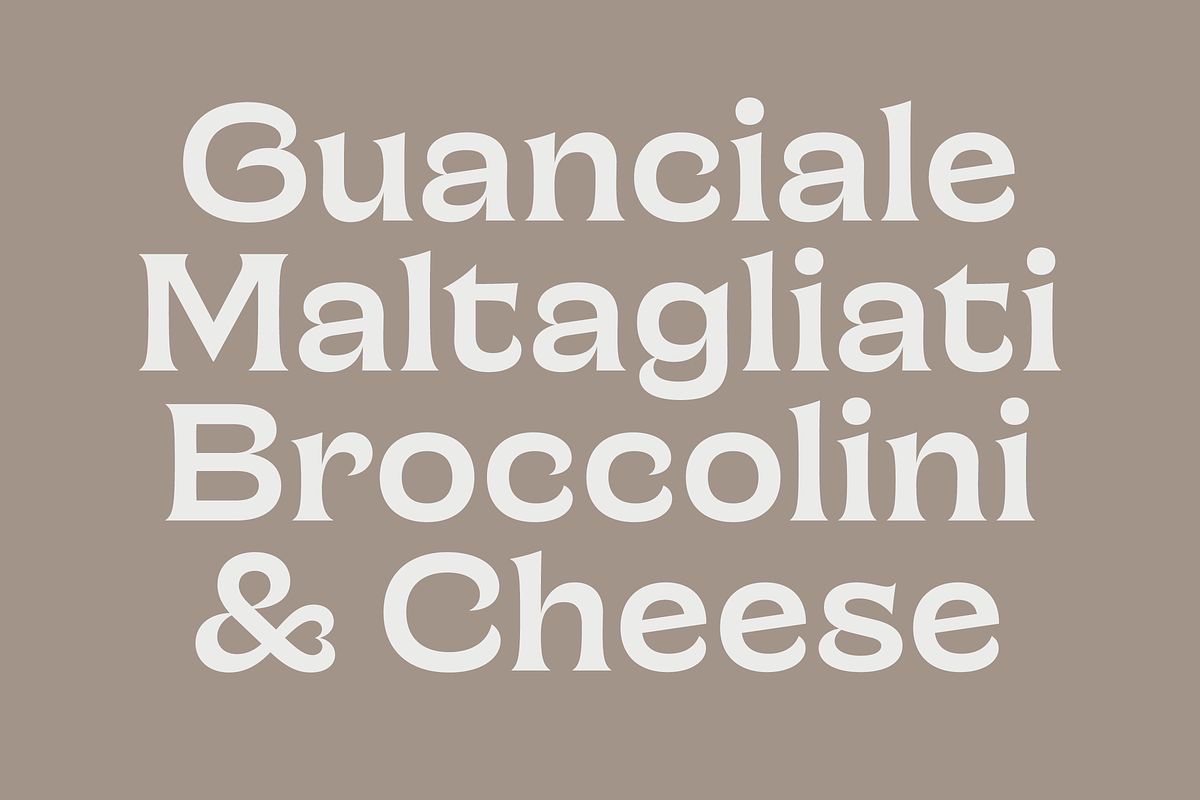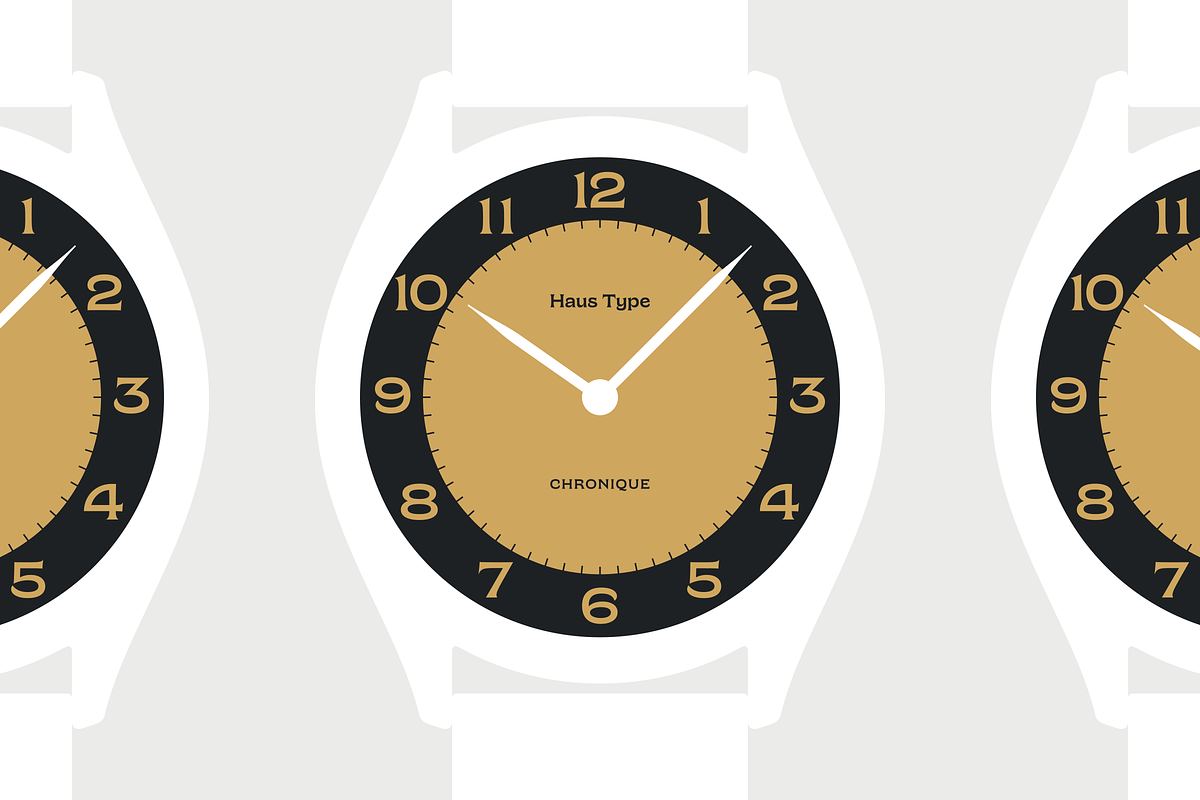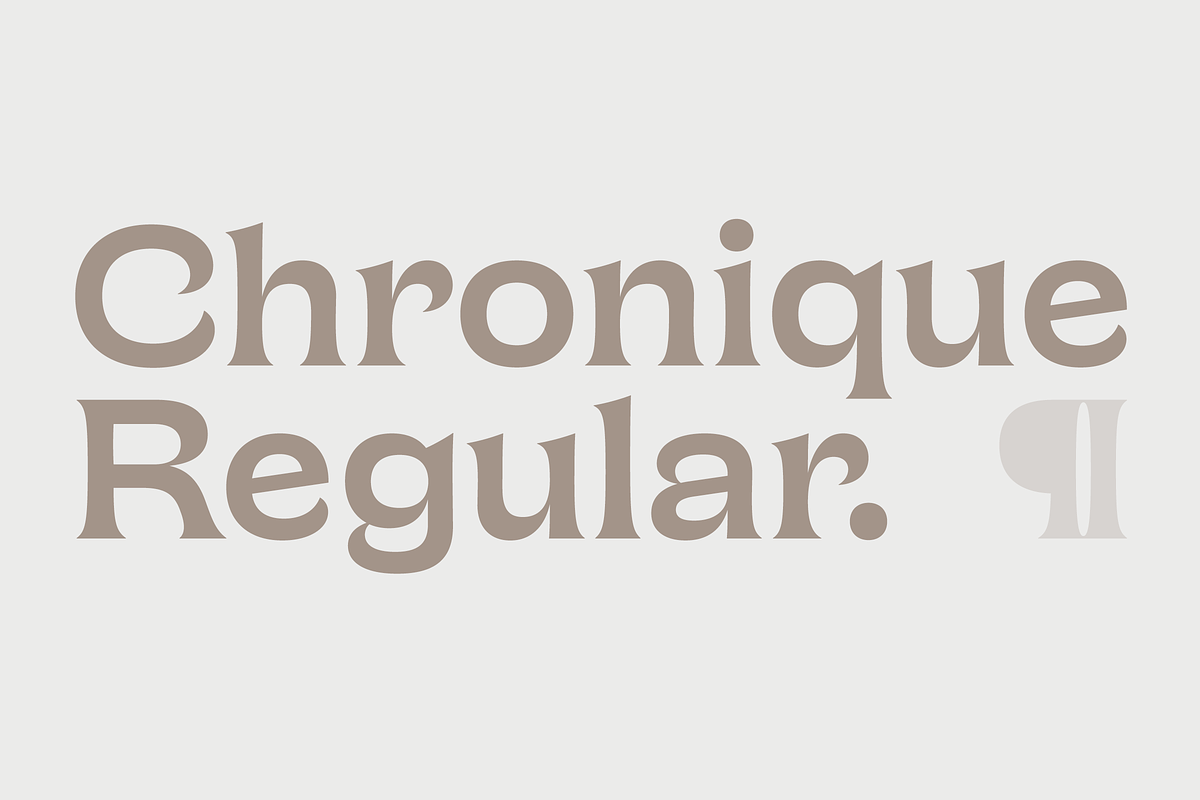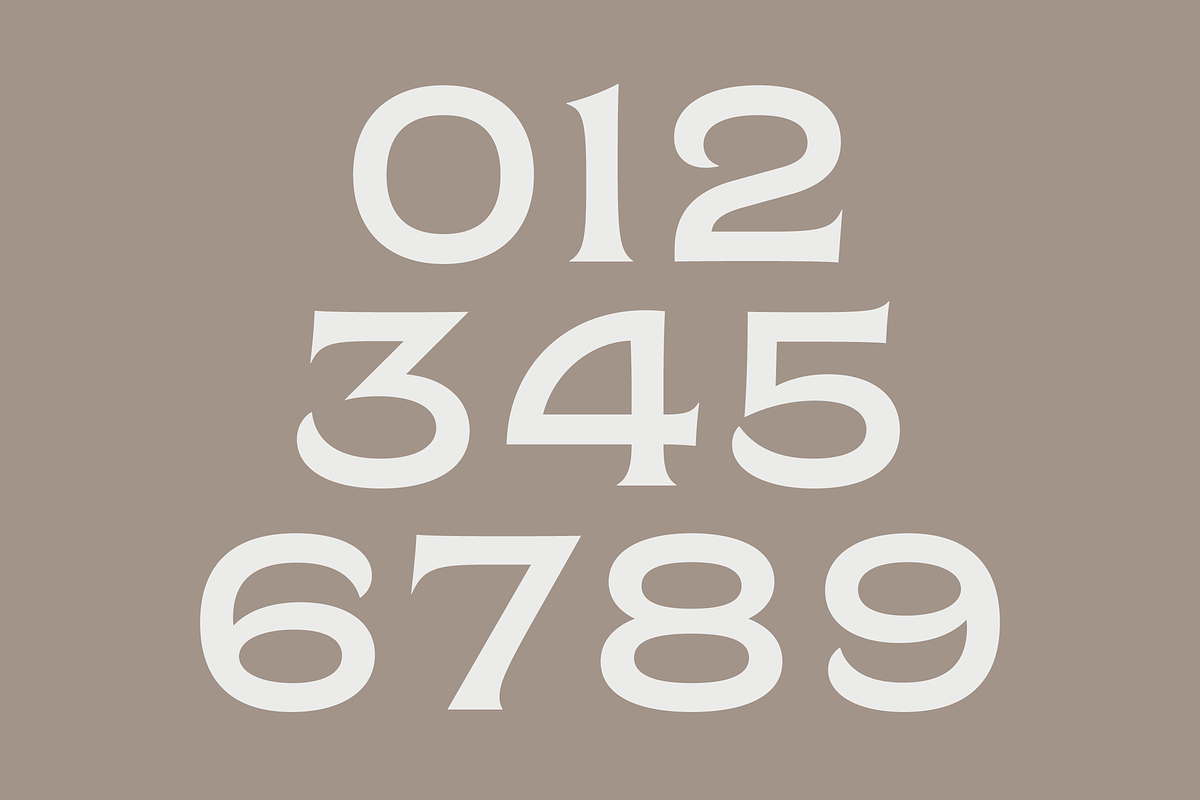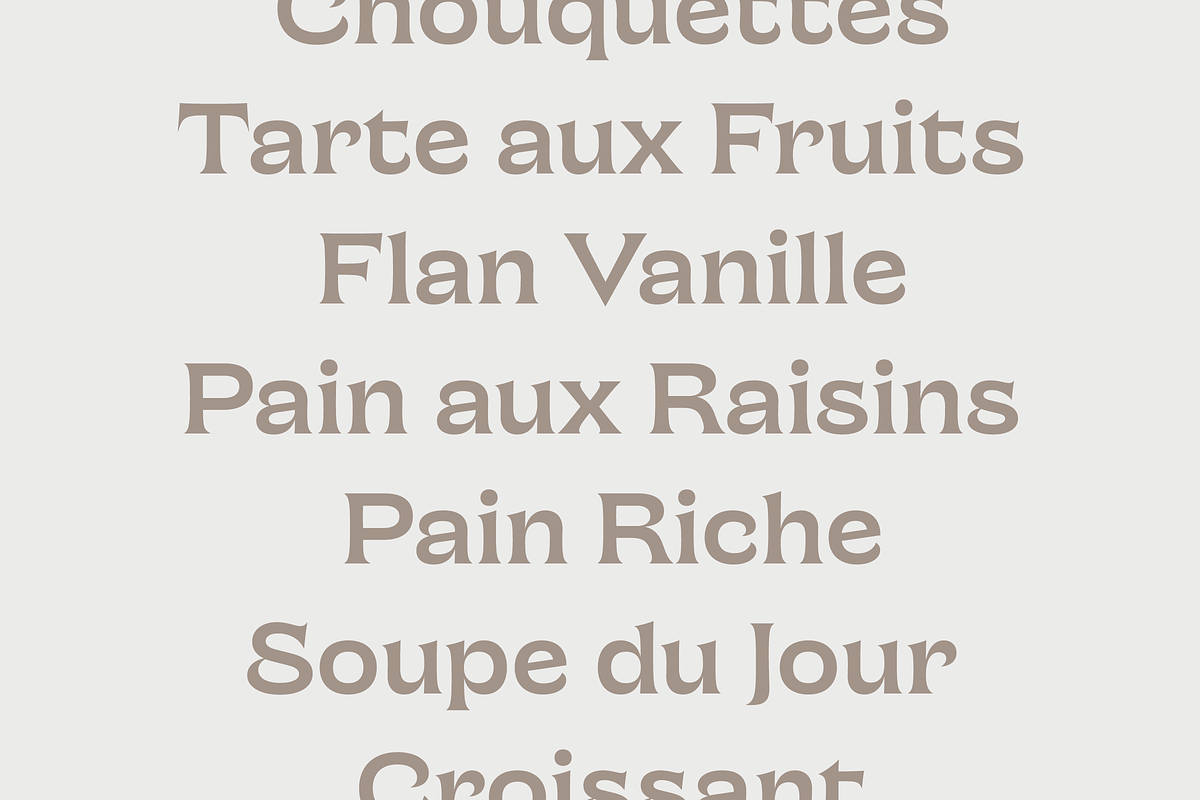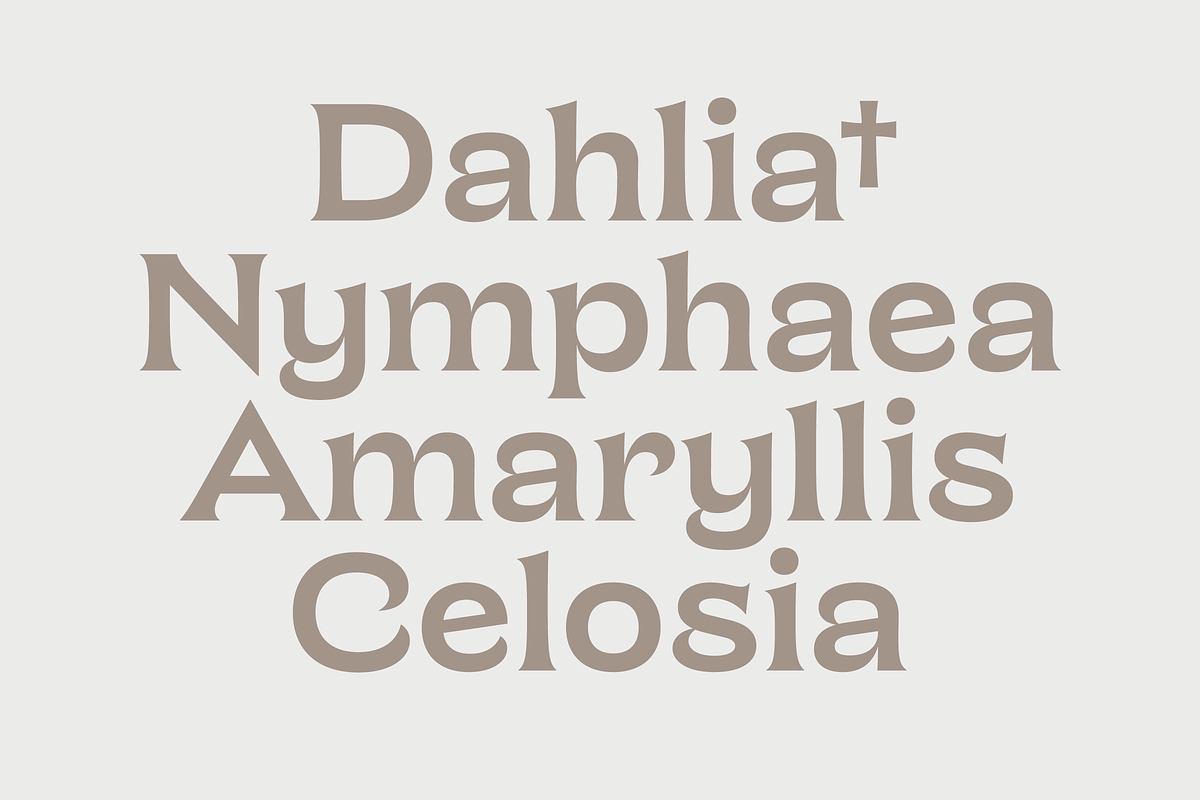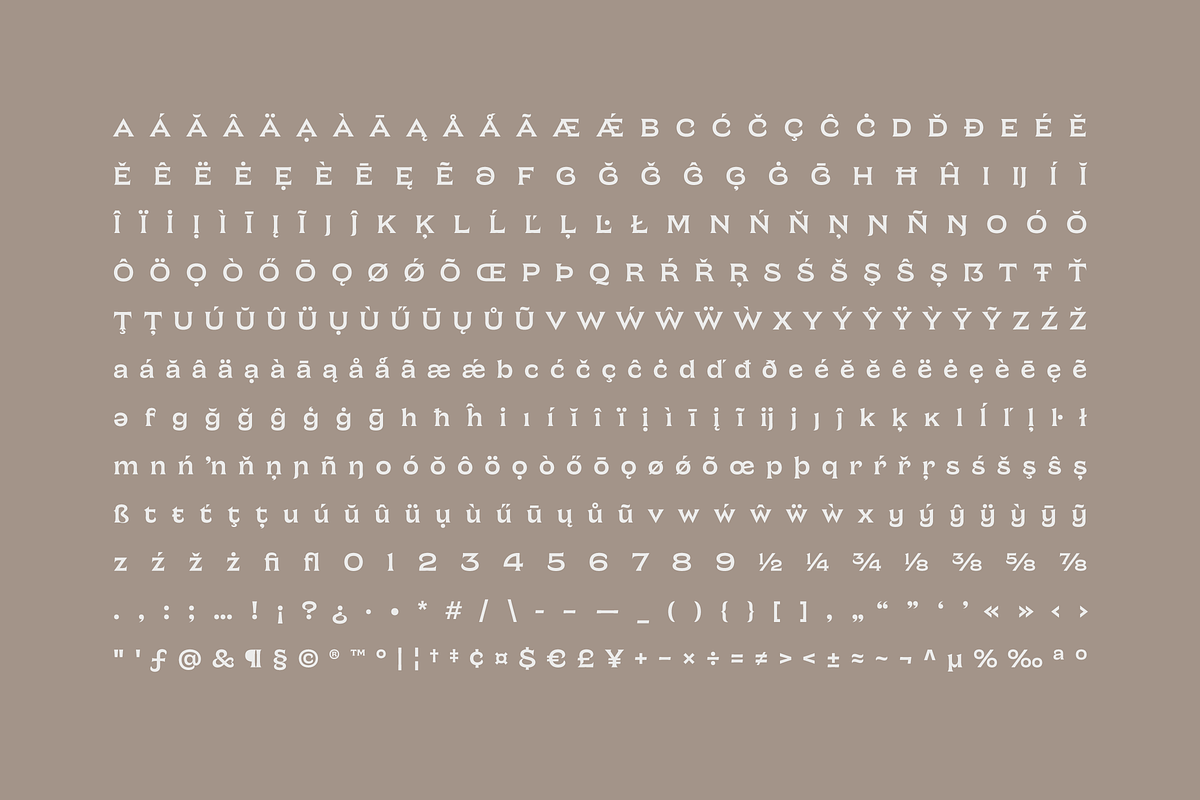
Chronique
Introducing Chronique, a timeless typeface inspired by the iconic numerals found on vintage wristwatches. Crafted with precision, Chronique combines classic elegance with modern versatility. It sports flared serifs for a touch of refinement, reminiscent of the meticulous detail in vintage horology. Chronique is perfect for projects that demand both sophistication and a nod to retro craftsmanship, and is best used in larger texts.